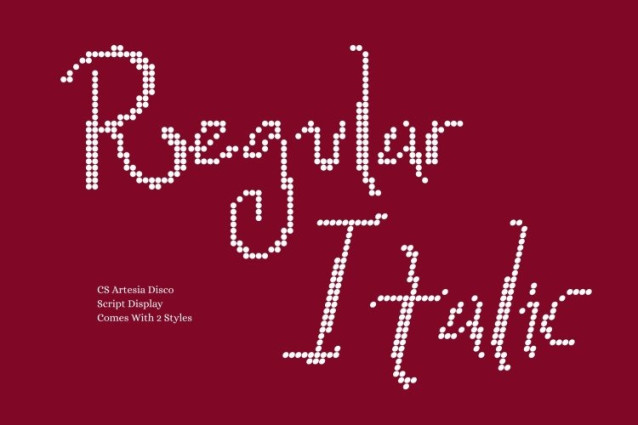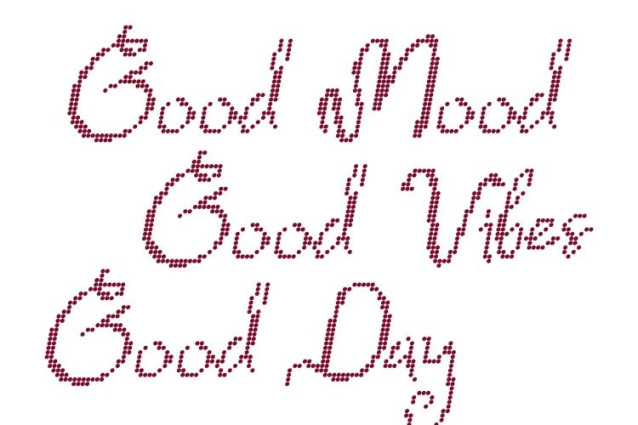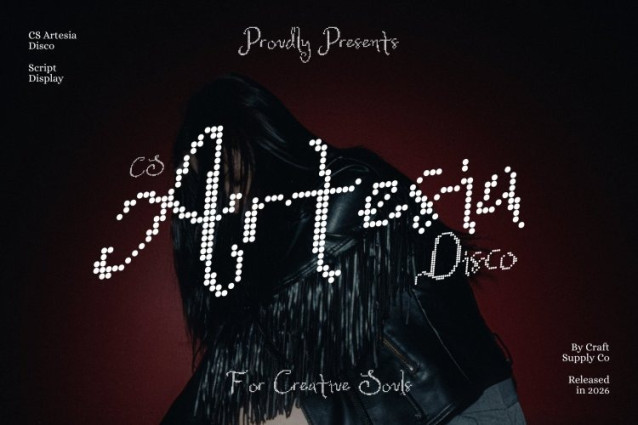
CS Artesia Disco Font
CS Artesia Disco Font – This is a handcrafted, whimsical handwritten font that celebrates the charm of natural curves and playful strokes. Each letter flows with graceful movement, bringing warmth, personality, and sophistication to any design. Its lively yet elegant forms make every word feel personal, expressive, and delightfully human.
Beautiful Curves for Flowing, Playful Expression
The defining feature of this font is its smooth, harmonious curves. Letters connect with natural rhythm, evoking the feel of authentic handwriting with a subtle dance of energy. This flowing style conveys charm and refinement while maintaining a lighthearted, cheerful character perfect for projects that want elegance with a touch of fun.
Handcrafted Details for Authentic Personality
Each stroke carries the subtle imperfections and artistry of hand-drawn work, giving designs a sense of intimacy and authenticity. Its handcrafted quality adds depth and warmth, ideal for boutique logos, wedding invitations, lifestyle branding, or any creative layout that seeks personal flair and expressive detail.
Perfect for Stylish, Playful, and Creative Designs
From fashion editorials and luxury branding to creative posters and artisanal projects, this font balances sophistication with whimsical energy. Its versatile, humanized design ensures that every piece feels unique, lively, and full of charm bringing style, personality, and warmth to every composition.